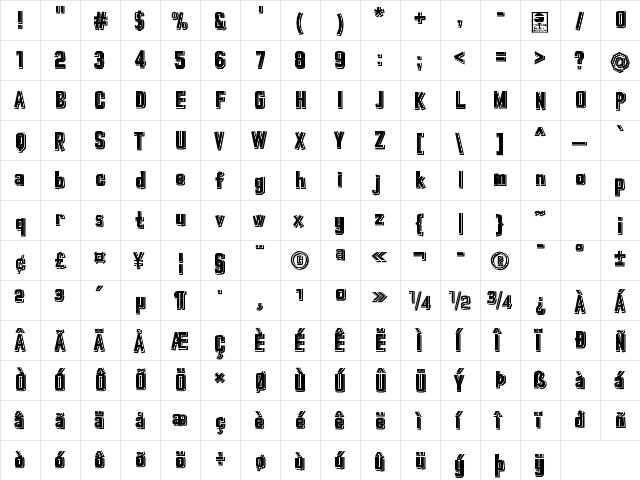
Typo Cut-Out Shadowed Demo Regular
| Foundry | StudioTypo |
| Designer | Mehmet Abac |
Design Context for Typo Cut-Out Shadowed Demo Typeface
Typo Cut-Out Shadowed Demo brings ornamental detail and strong personality to headlines and identities, where visual impact matters more than quiet functionality.
Font Pairing: Pair with a clean neutral sans-serif for body copy to let Typo Cut-Out Shadowed Demo's character lead without overwhelming the composition.
Pro Tip: Treat Typo Cut-Out Shadowed Demo as the centrepiece of your typographic hierarchy. One strong heading set in a decorative face can carry an entire layout.